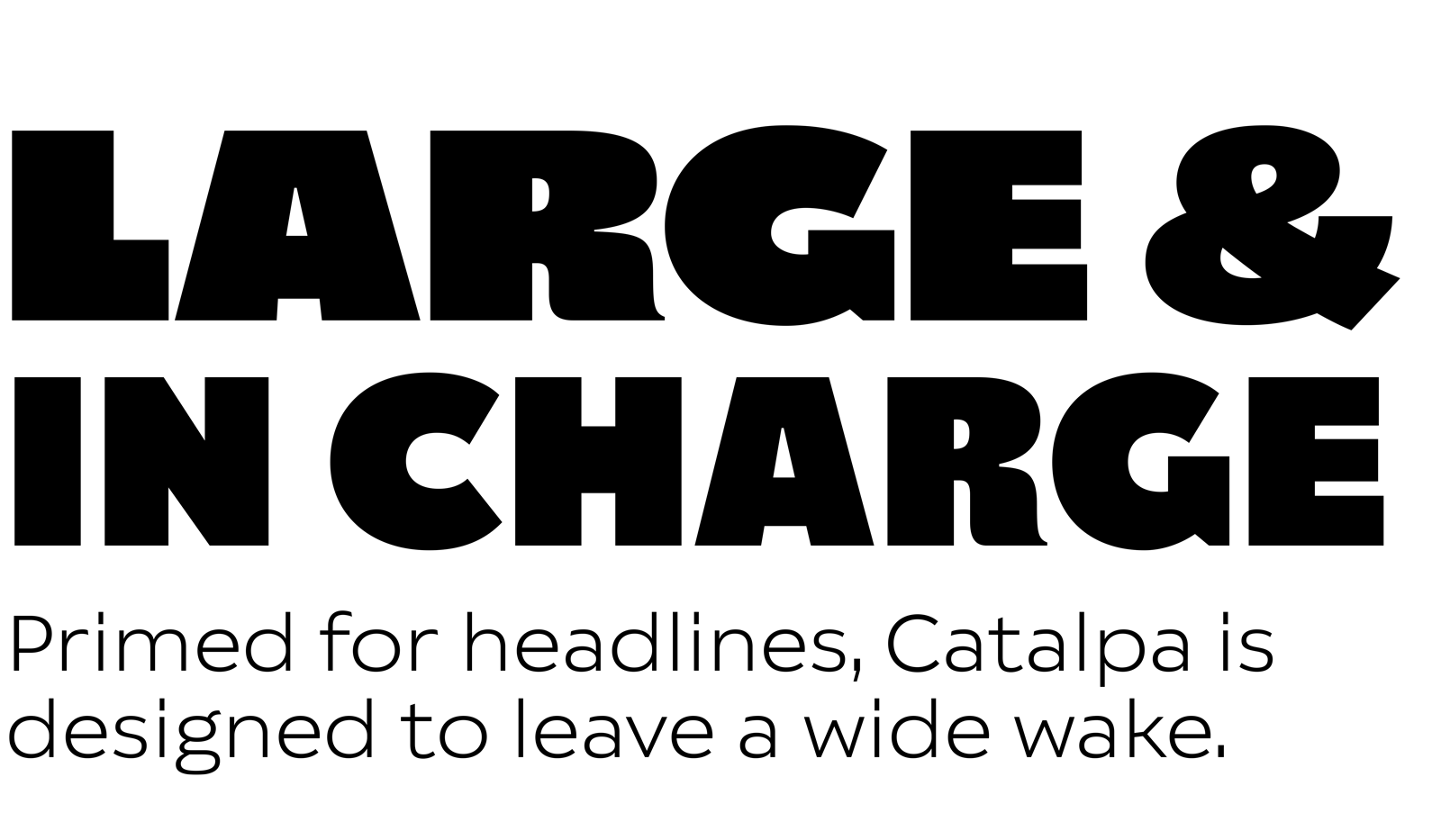
We’ve just finished the unboxing for José, Azza, and Veronika’s newest family newest family, Catalpa, and it’s a knockout! This targeted family only has four thin and four heavy weights — yep, no regular weights on purpose. And that purpose is for headlines, callouts, enormous sizes, stark contrast, strong impressions, and a lot of fun. Even better, if you purchase the full bundle, we’ve included Catalpa in the variable font format, which means it’s a great option for websites and apps. Check it out on our website type tester.